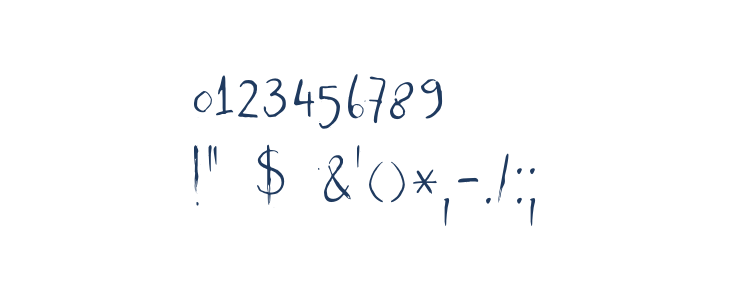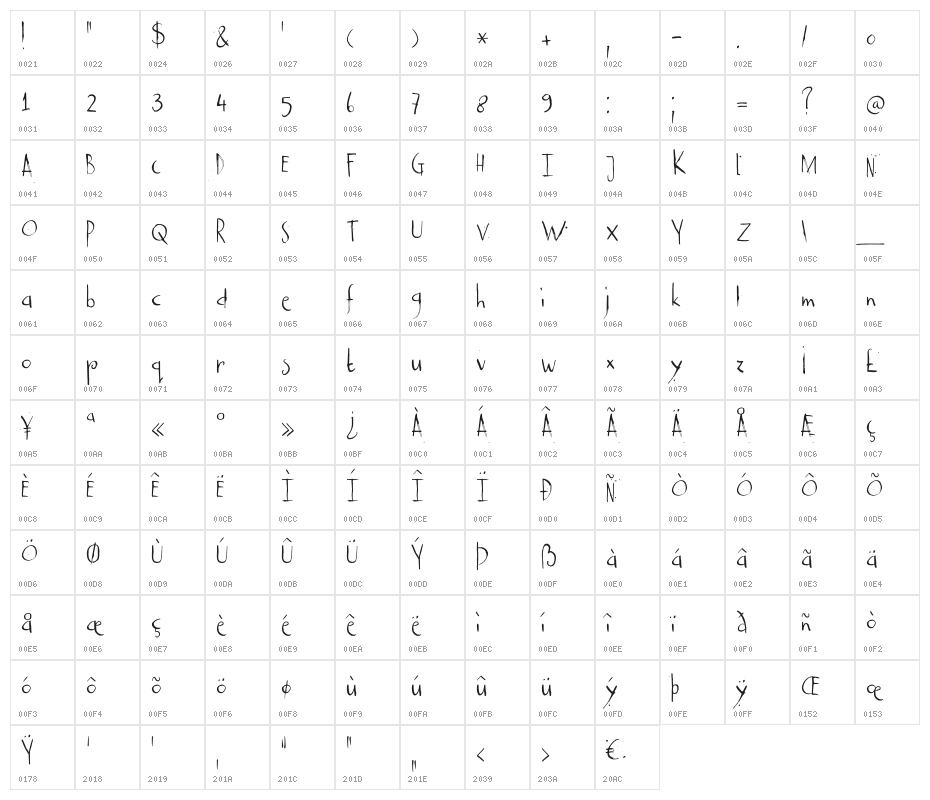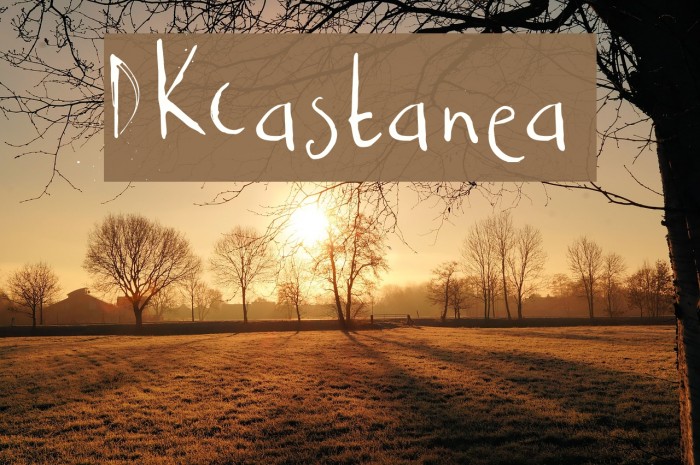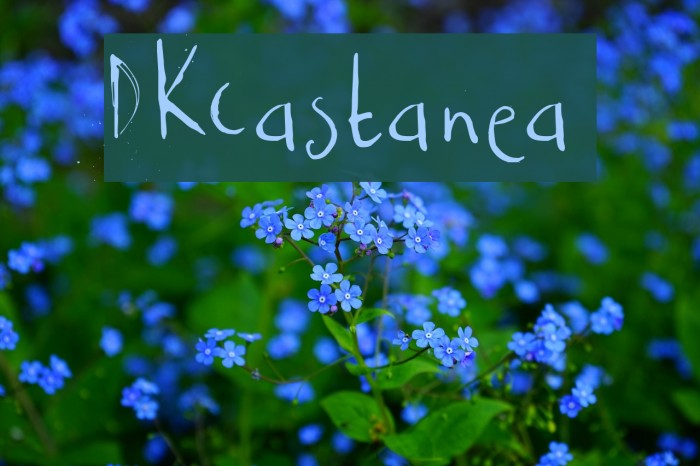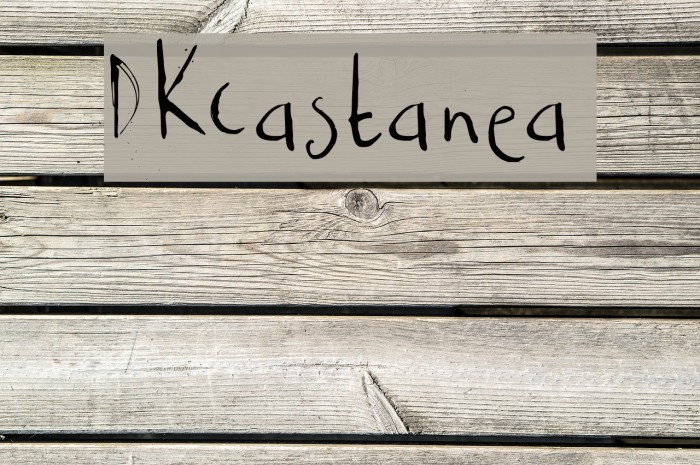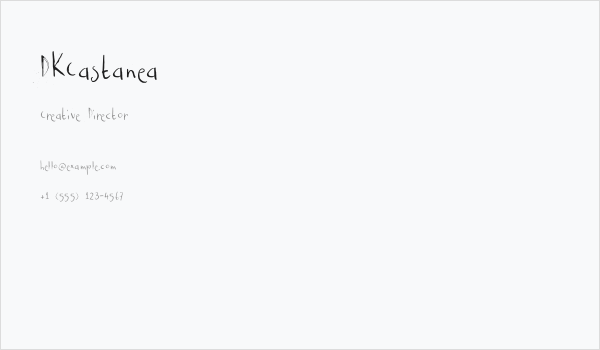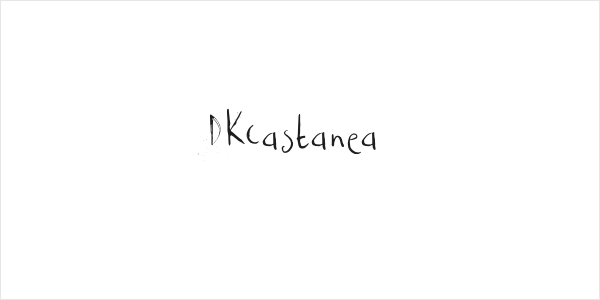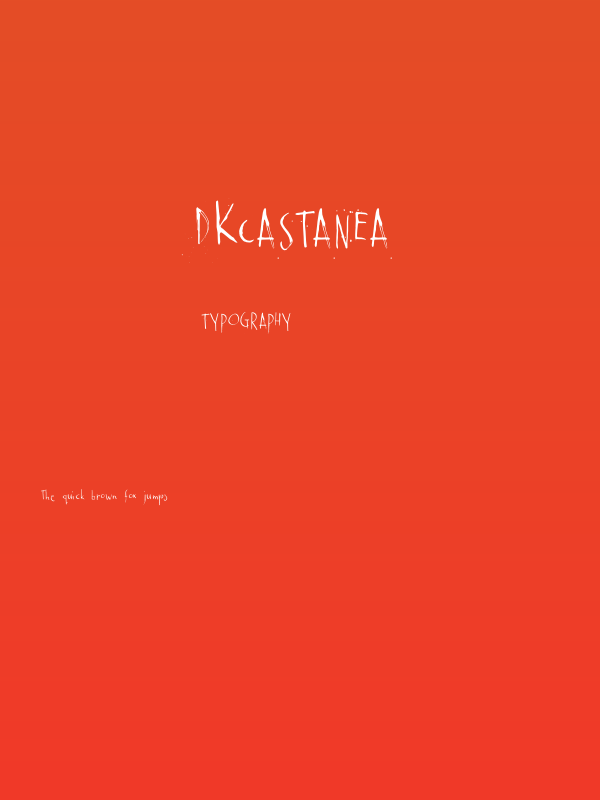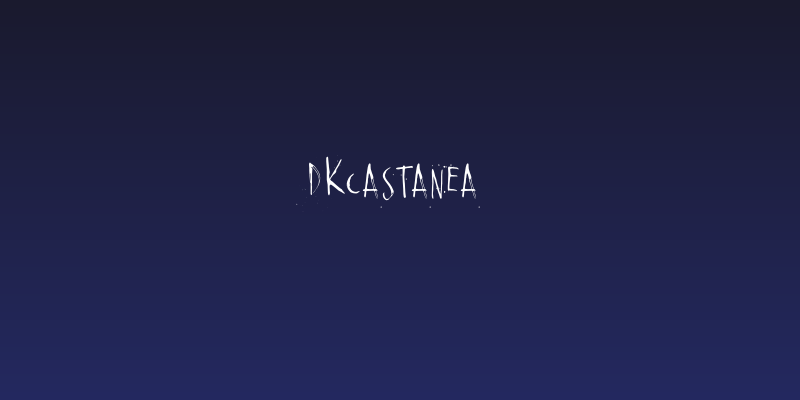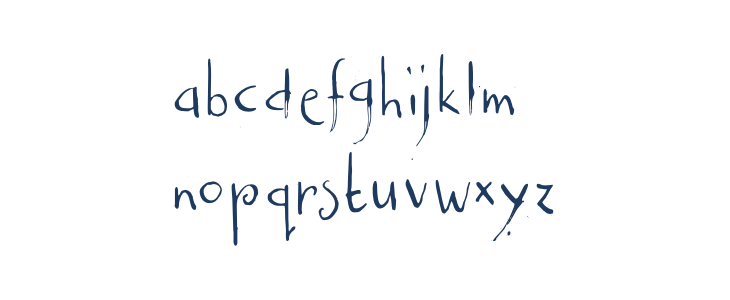
DKCastanea Font
DKCastanea Description
This font features a distinctive, hand-drawn style with an organic, slightly irregular appearance. The characters are elongated and have a whimsical, artistic flair, reminiscent of ink sketches. The strokes vary in thickness, adding a dynamic and lively feel to the text. The uppercase letters are tall and narrow, while the lowercase letters maintain a consistent flow, enhancing the font's playful yet sophisticated nature. The numerals and special characters follow the same artistic theme, making the font suitable for creative projects that require a unique and personal touch.
| Use Case | Logos, Headlines, Artistic projects |
| Proposed Projects | Ideal for artistic projects, invitations, posters, and branding that require a personal, creative touch. |